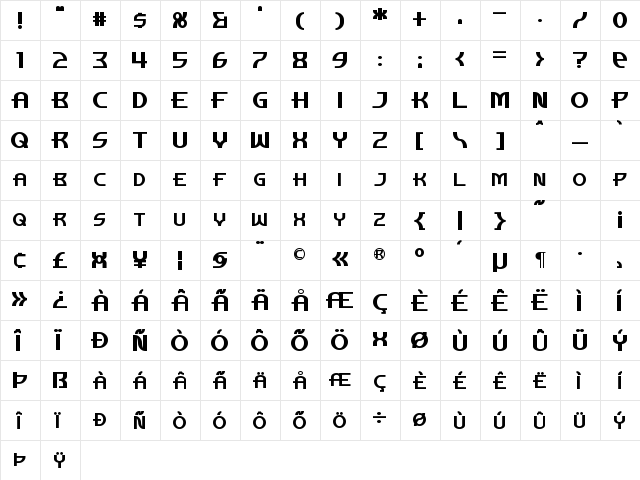
Manhattan Tower Regular
| Foundry | Pixel Sagas |
| Designer | Neale Davidson |
Design Context for Manhattan Tower Typeface
Manhattan Tower takes a measured approach to typography — its balanced proportions and neutral character make it a reliable workhorse for both digital and print work.